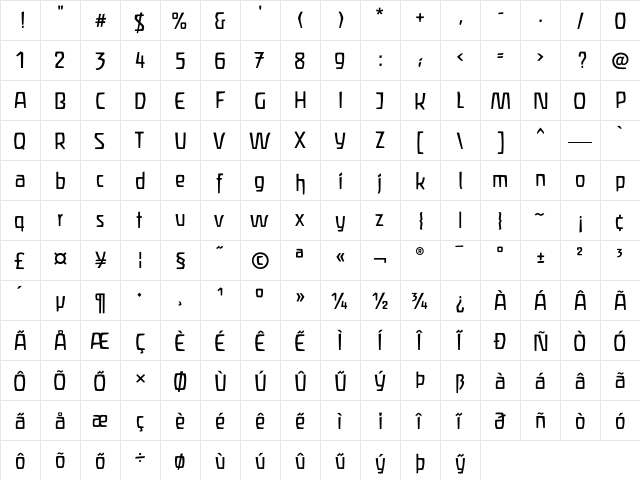
Liant Regular
Design Context for Liant Typeface
Liant is a composed and adaptable typeface that performs quietly and consistently across a wide range of design contexts.